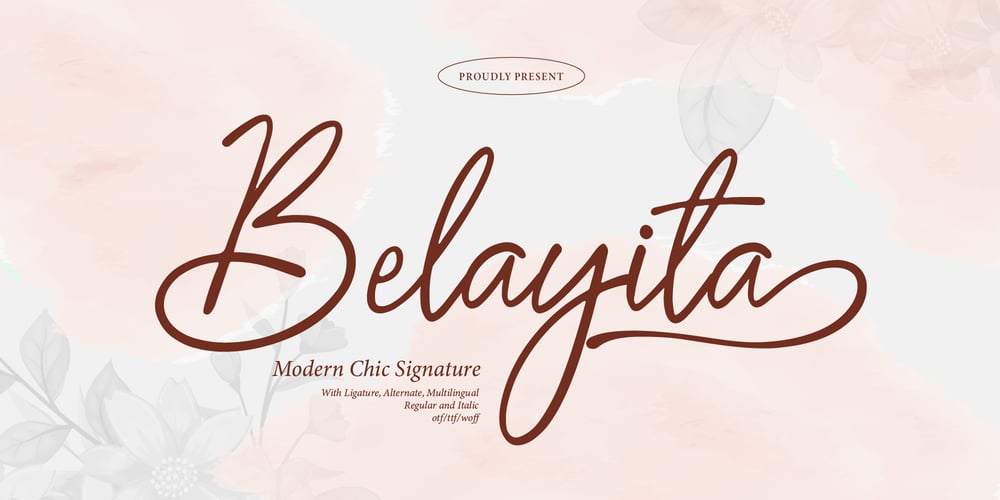
Belayita
Belayita font
Belayita Font Family was designed by Dede Nugraha and published by Denustudio. Belayita contains 2 styles and family package options. Belayita | Modern Chic Signature, from Denustudios, suitable for any projects such as: logos, branding projects, homeware designs, product packaging, mugs, quotes, posters, shopping bags, t-shirts, book covers, name card, invitation cards, greeting cards, label, photography, watermark, special events, and all your other lovely projects that need a Modern Chic Signature taste.===========================================================================What’s Included : Regular and Italic Web Font Standard glyphs Alternate and Ligature Works on PC & Mac Simple installations Accessible in the Adobe Illustrator, Adobe Photoshop, Adobe InDesign, even work on Microsoft Word and Other Software. PUA Encoded Characters – Fully accessible without additional design software. Fonts include multilingual support Hope you enjoy with our font!